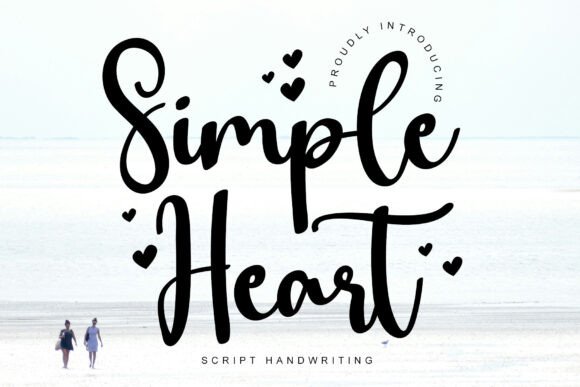
Introducing Simple Heart Font: The Elegant and Delicate Handwritten Typeface for Your Design Needs
In the world of typography, a well-crafted font can make all the difference in elevating your design to the next level. If you’re looking for a typeface that exudes elegance and delicacy, look no further than Simple Heart Font. This beautiful handwritten font is perfect for a variety of design applications, from logos and branding to social media posts, advertisements, business cards, wedding invitations, and product design.
What Makes Simple Heart Font Special?
- Elegant and Delicate: Simple Heart Font boasts a sophisticated and refined aesthetic, making it ideal for designs that require a touch of luxury and poise.
- Handwritten Typeface: The font’s handwritten nature gives it a personal and organic feel, perfect for creating a sense of warmth and connection with your audience.
Endless Design Possibilities with Simple Heart Font
Simple Heart Font is an incredibly versatile typeface that can be used in a wide range of design applications. Here are some ideas to get you started:
- Logos and Branding: Create a lasting impression with a custom logo that showcases your brand’s personality and style.
- Social Media Posts: Add a touch of elegance to your social media posts and make them stand out in a crowded feed.
- Advertisements: Use Simple Heart Font to create eye-catching ads that capture the attention of your target audience.
- Business Cards: Make a great first impression with beautifully designed business cards that reflect your professional brand.
- Wedding Invitations: Create stunning wedding invitations that set the tone for a memorable and special day.
- Product Design: Use Simple Heart Font to add a touch of sophistication to your product design, packaging, and labeling.
Tips for Working with Simple Heart Font
To get the most out of Simple Heart Font, here are some typography tips to keep in mind:
- Pair it with Other Fonts: Experiment with pairing Simple Heart Font with other fonts to create a unique and visually appealing typography combination.
- Play with Sizes and Styles: Don’t be afraid to experiment with different font sizes and styles to add depth and visual interest to your design.
- Use it for Headlines and Titles: Simple Heart Font is perfect for headlines and titles, where its elegant and delicate nature can shine.
The Benefits of Using Simple Heart Font
So why choose Simple Heart Font for your design needs? Here are just a few benefits of using this beautiful typeface:
- Unique and Memorable: Simple Heart Font is a unique and memorable typeface that will help your design stand out from the crowd.
- Elegant and Sophisticated: The font’s elegant and sophisticated nature makes it perfect for designs that require a touch of luxury and poise.